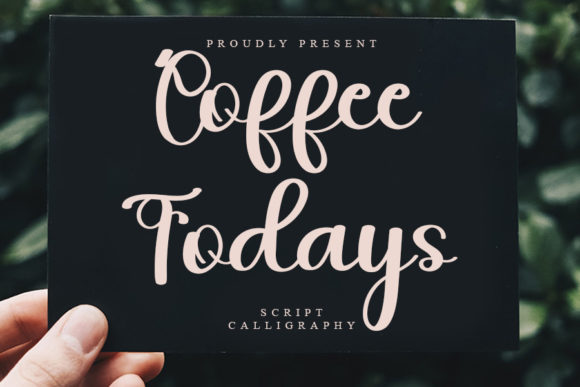
Introducing the Coffee Todays Font, a beautiful and refreshing addition to your design arsenal. This elegant and classy script font was created by FreshTypeINK, a renowned name in the font industry. With its delicate strokes and flowing lines, Coffee Todays exudes a sophistication that will elevate any project.
Coffee Todays is perfect for a wide range of applications, from wedding invitations and branding to social media graphics and website design. Its versatility allows you to create stunning designs that will leave a lasting impression. Whether you're a seasoned designer or just starting out, Coffee Todays is the perfect font to add a touch of class to your work.